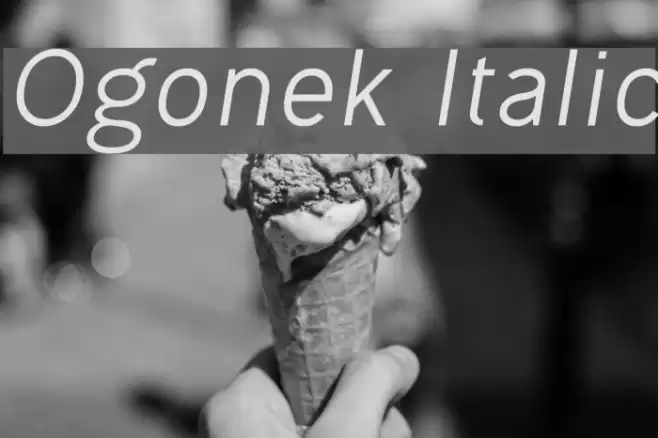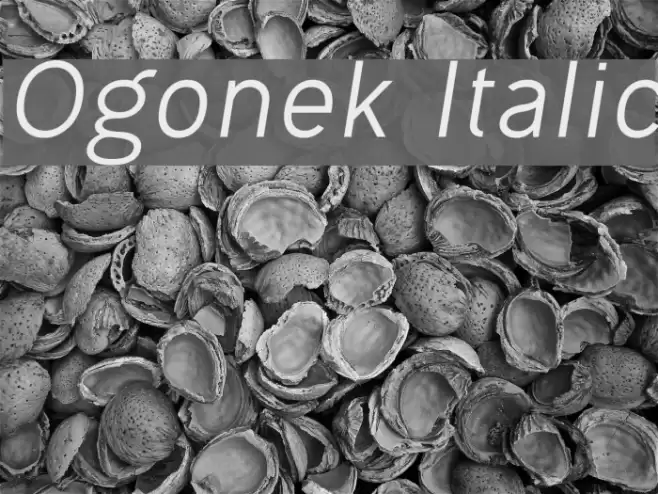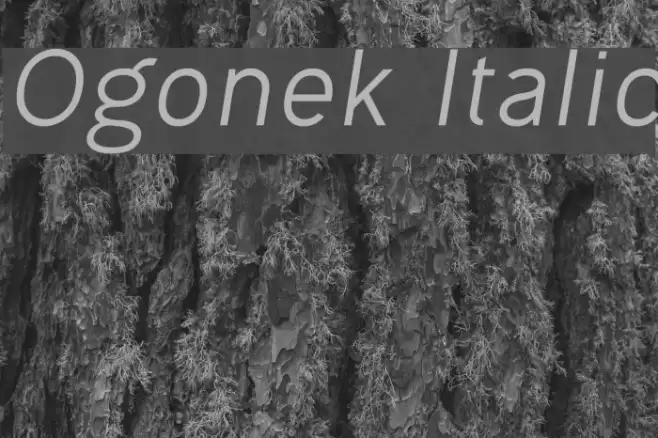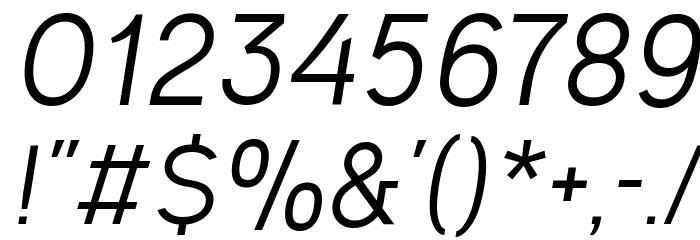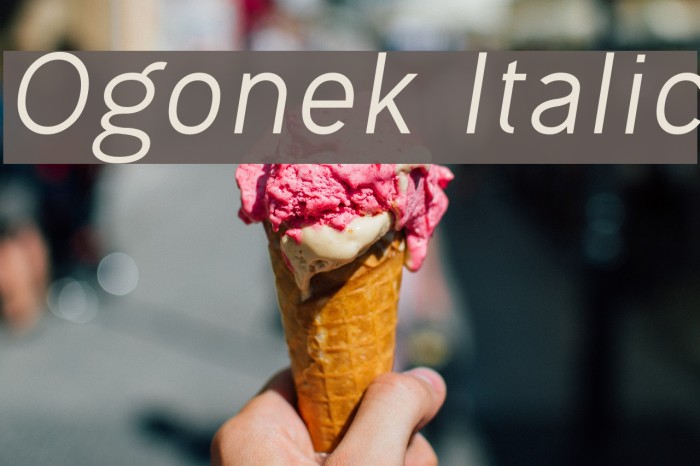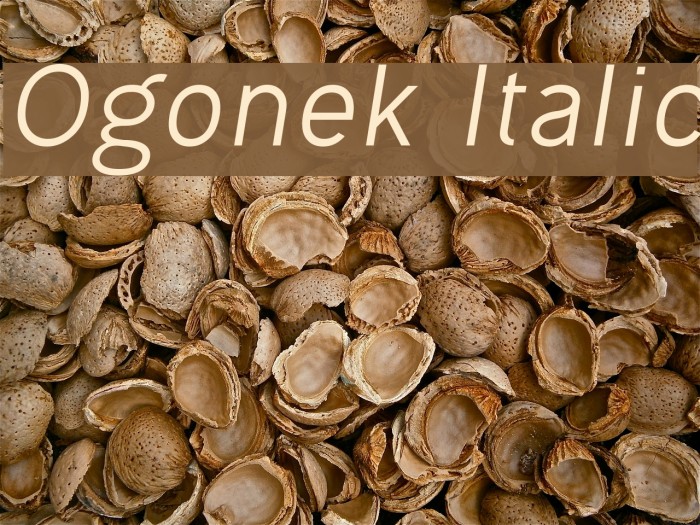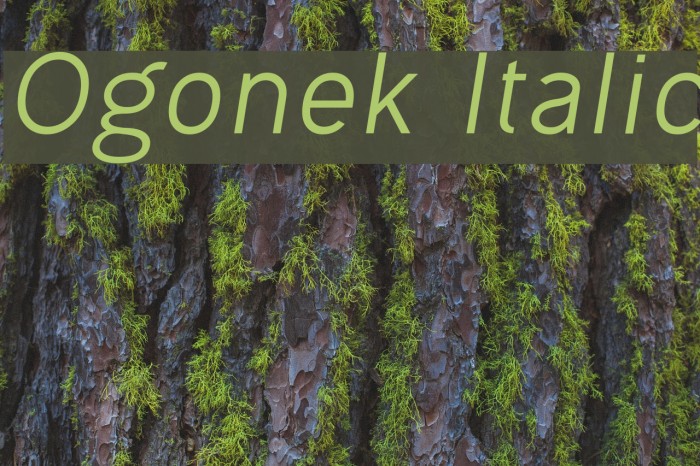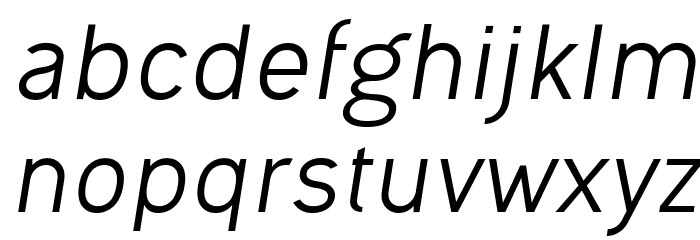
Ogonek Italic Font
Ogonek Italic Description
This font features a sleek, modern design with a slight slant, giving it an italicized appearance. The characters are clean and well-defined, with a consistent stroke width that provides a uniform look across both uppercase and lowercase letters. The numerals are clear and easy to read, maintaining the same stylistic elements as the alphabet. Special characters are included, matching the overall aesthetic of the font. Its simplicity and elegance make it versatile for various design applications.
A modern, italicized font with clean lines and consistent stroke width from Uncategorized fonts.
- Proposed Projects: Ideal for use in digital content, branding, advertising, and editorial design where a modern and sophisticated look is desired.